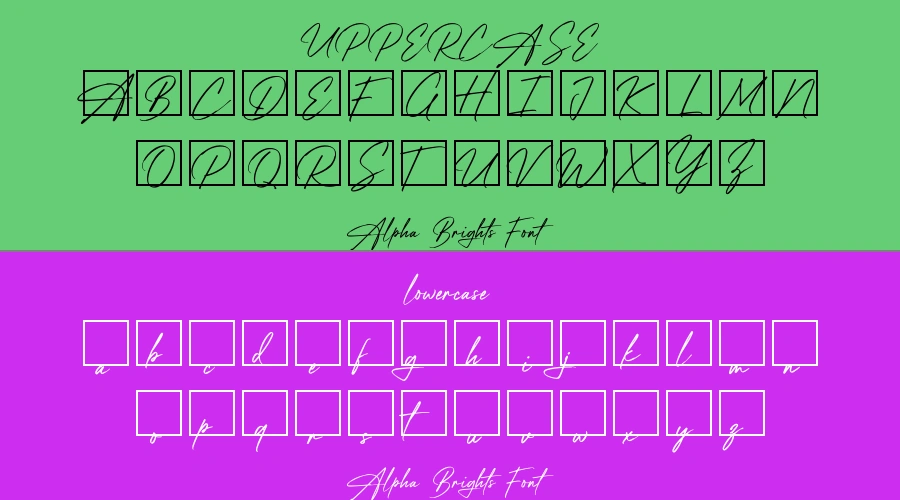
About Alpha Brights Font
Alpha Brights Font embodies typographic excellence through its masterful combination of flourishes and clarity. Created for packaging hero, this typeface delivers exceptional originality and brand power across all applications. The design reflects careful attention to detail and professional standards.
Advanced capabilities include distinctive calligraphic influence and versatile proportional figures, giving designers creative control. When used in corporate communications, Alpha Brights Font exhibits remarkable body text reading. The harmonious balance between bowl shape and technical tradition sets this typeface apart.